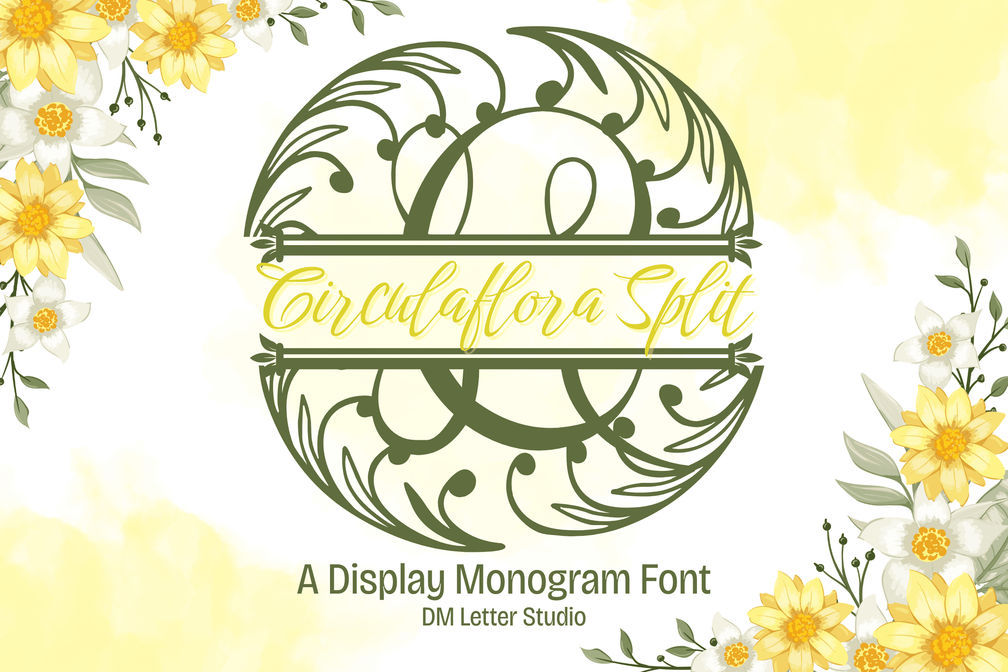
Circulaflora Split Monogram
Circulaflora Split Monogram – Botanical Circle Split Monogram Font
Circulaflora Split Monogram is a clean and elegant split-letter font with each uppercase character nestled inside a refined floral ring. Designed with a centered gap for personalization, this monogram font blends modern minimalism and botanical charm. Whether you’re designing wedding signage, personalized gifts, or branded packaging, Circulaflora Split Monogram delivers both beauty and function.
• Split Monogram Layout: A centered break in each uppercase letter allows for custom names or initials.
• Floral Circle Frame: Each letter is enclosed in a graceful botanical wreath, ideal for refined designs.
• Complete Character Set: Includes A–Z uppercase letters, numerals, punctuation, and multilingual characters.